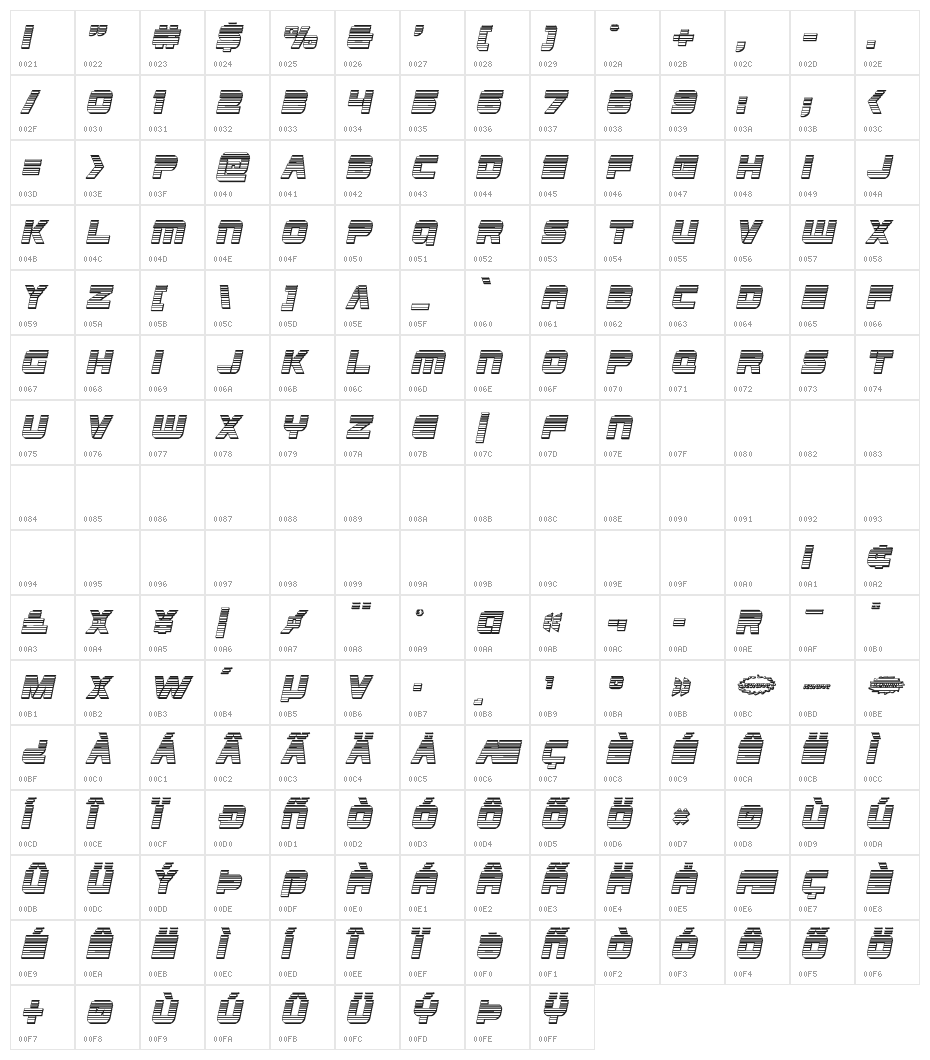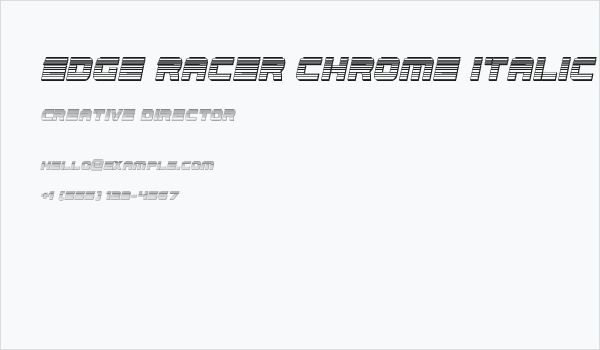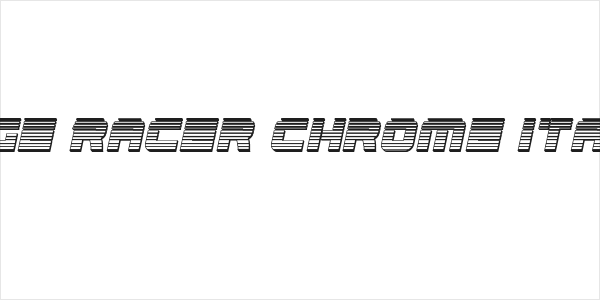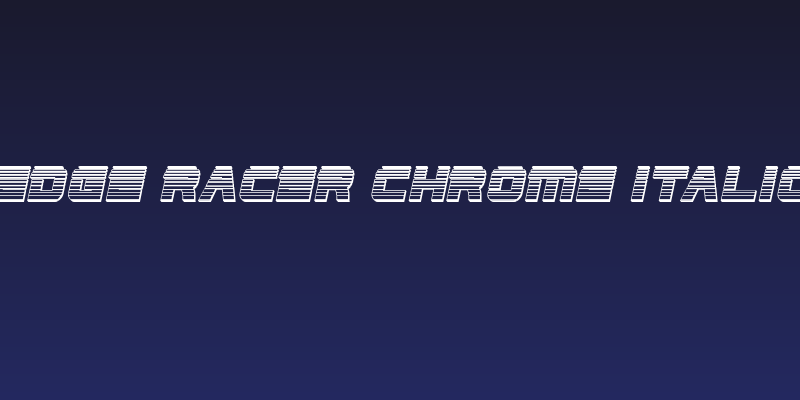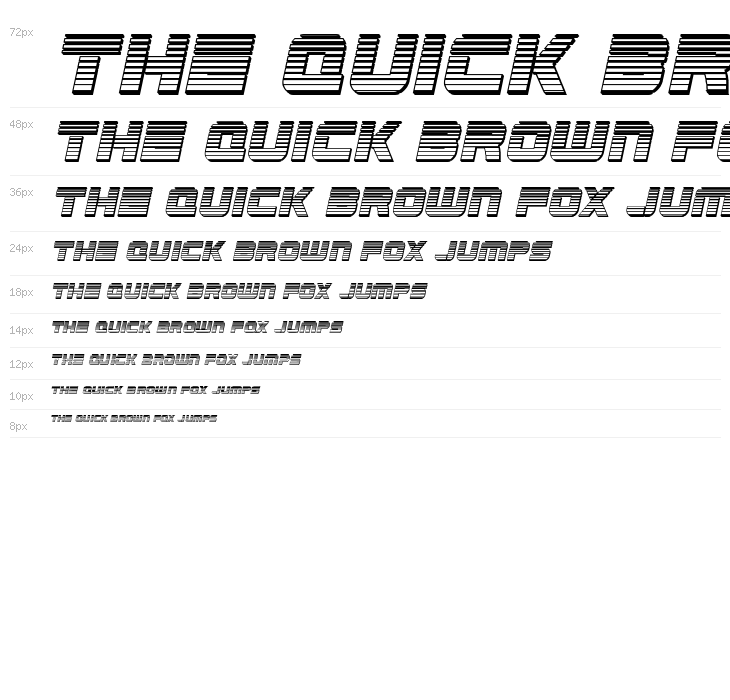
Edge Racer Chrome Italic Font
Edge Racer Chrome Italic Description
This font features a bold, futuristic design with a distinct chrome-like appearance. The characters are italicized, giving a dynamic and fast-paced feel. Each letter is composed of multiple horizontal lines, creating a layered, three-dimensional effect. The font is highly stylized, making it ideal for projects that require a modern and edgy look. The uppercase and lowercase letters maintain a consistent style, while the numbers and special characters are equally bold and striking. This font is perfect for creating eye-catching headlines, logos, and other graphic elements that need to stand out.
| Proposed Projects | Ideal for futuristic branding, automotive designs, video game titles, and tech-related projects. |